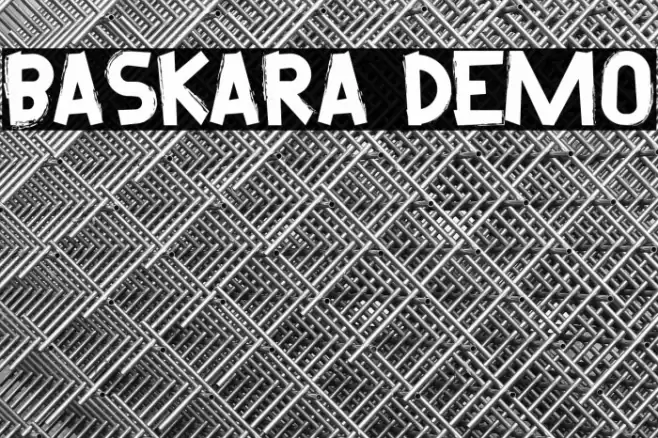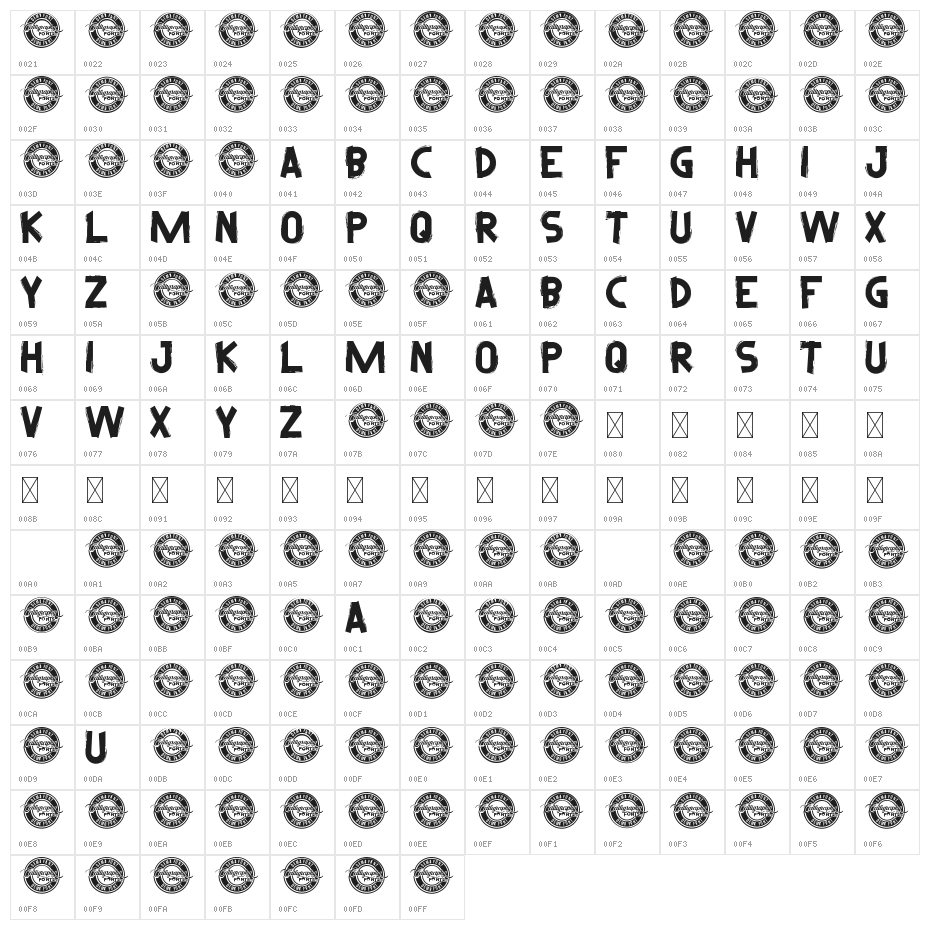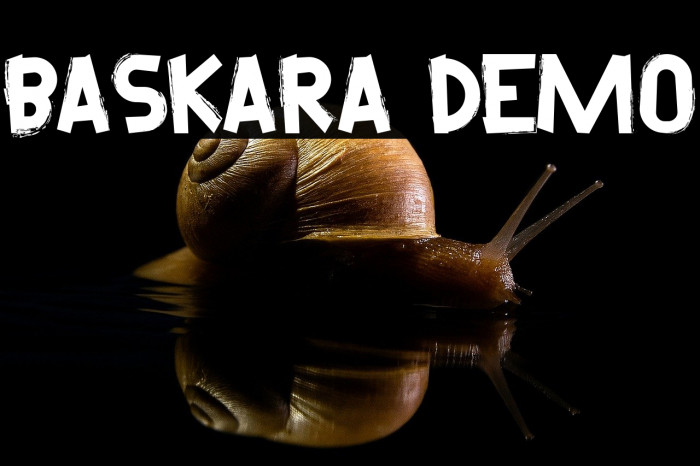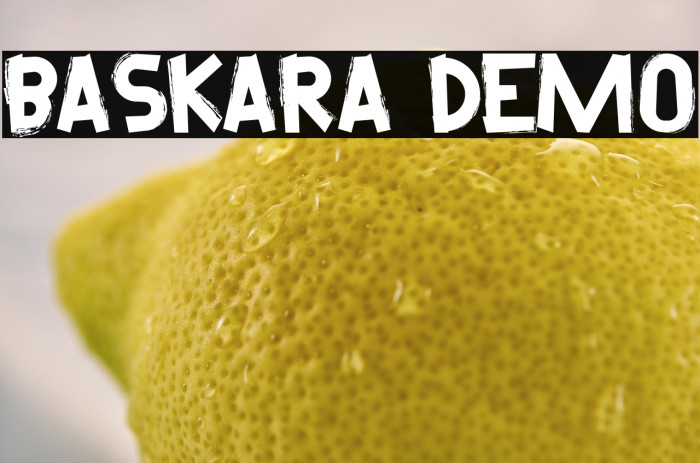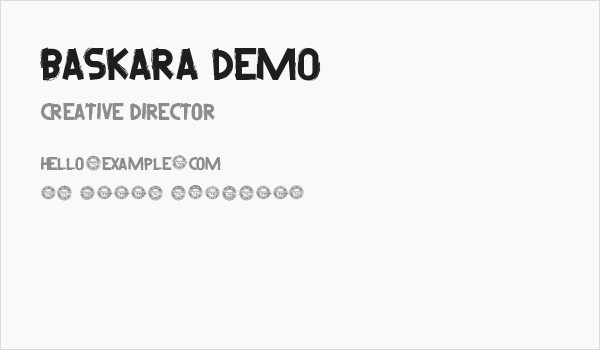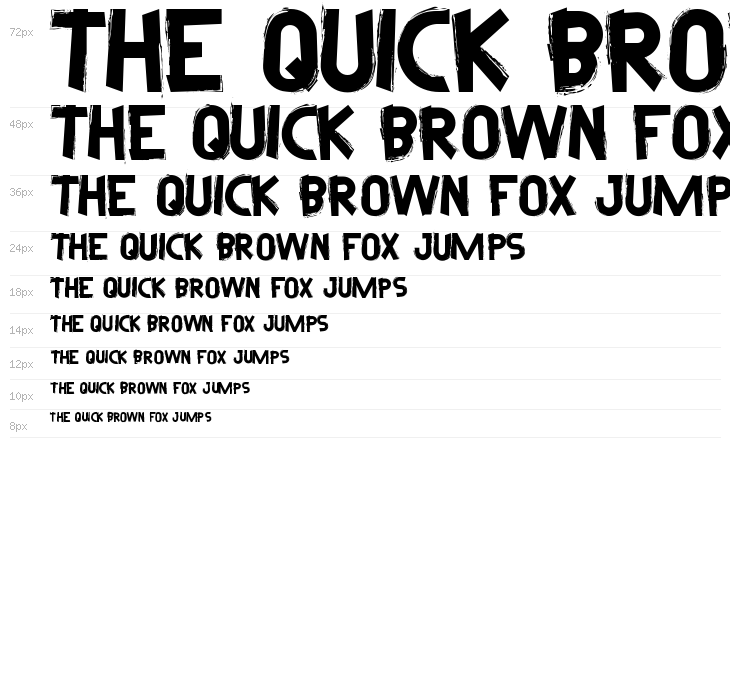
Baskara Demo Font
Baskara Demo Description
This font features a bold and dynamic brush style, characterized by its rough, textured strokes that give it a hand-painted appearance. The uppercase letters are prominent and impactful, making them ideal for attention-grabbing headlines. The font's unique texture adds a sense of movement and energy, while maintaining legibility. Its artistic flair makes it suitable for creative projects that require a bold statement. The font does not include lowercase letters or numerals, focusing solely on uppercase characters.
A bold, textured brush font with a dynamic, hand-painted style from Regular fonts.
- Proposed Projects: Ideal for posters, branding, logos, and any design needing a bold, artistic touch.
- Overall Style: Modern, Artistic